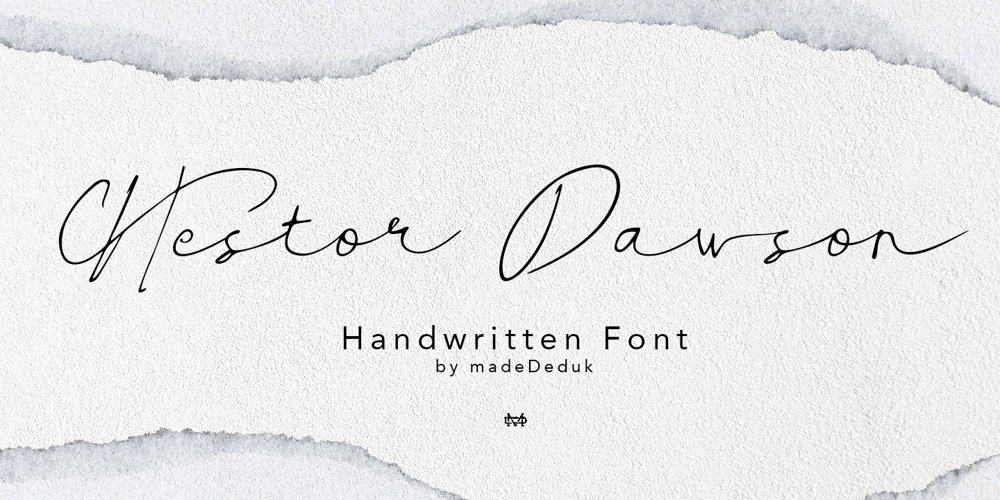
Hestor Dawson Font Family was designed by madededuk and published by madeDeduk. Hestor Dawson contains 1 styles and family package options. Really excited to introduce Hestor Dawson is gorgeous handwritten font. Hestor Dawson handwritten includes alternative and ligatures to make everything look natural handmade handwritten.Included: Uppercase Lowercase Number & Symbol International Glyphs Multilingual Support Ligature Alternative Hope you enjoy it.